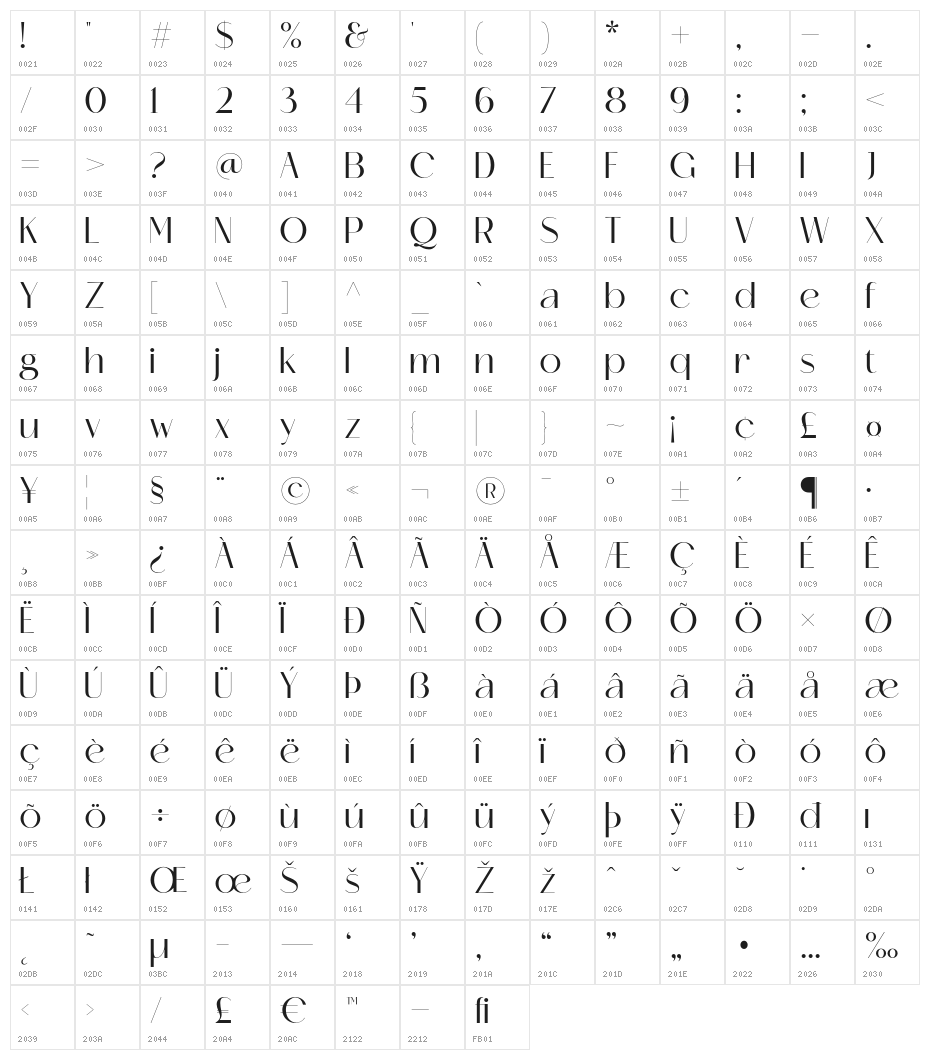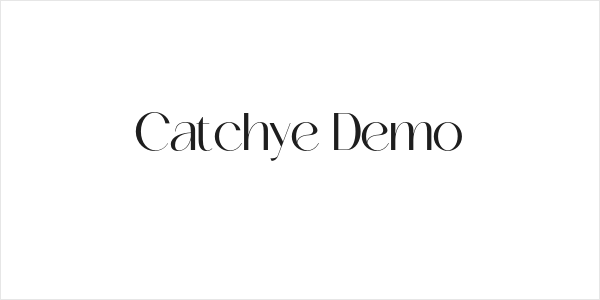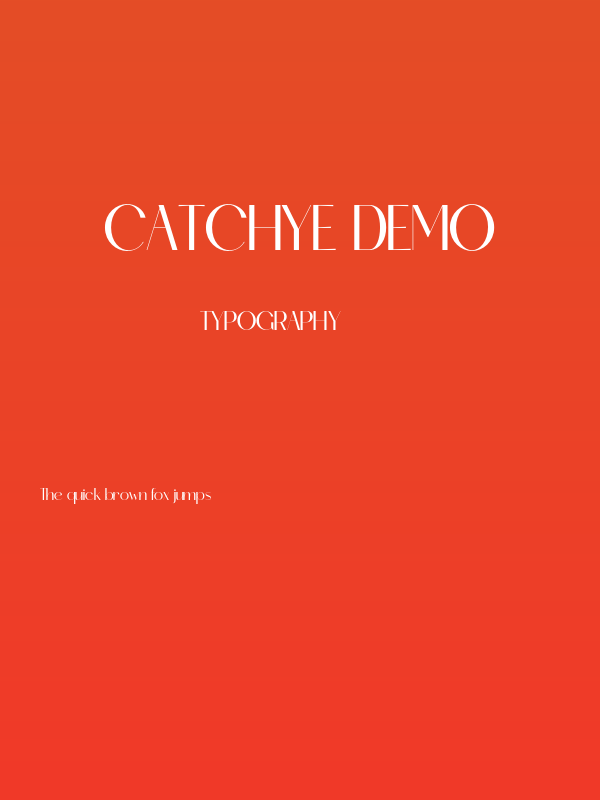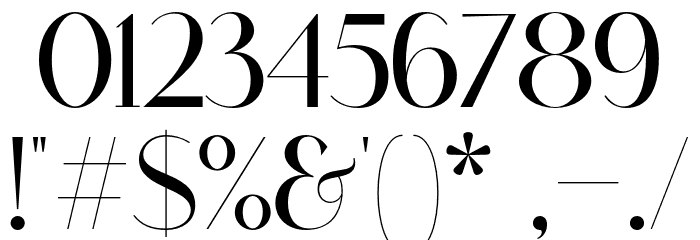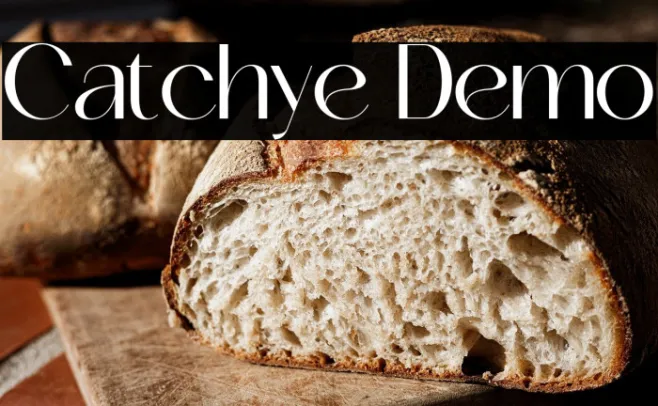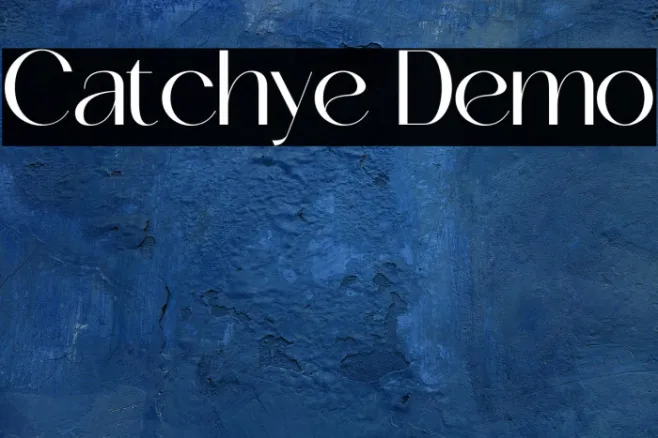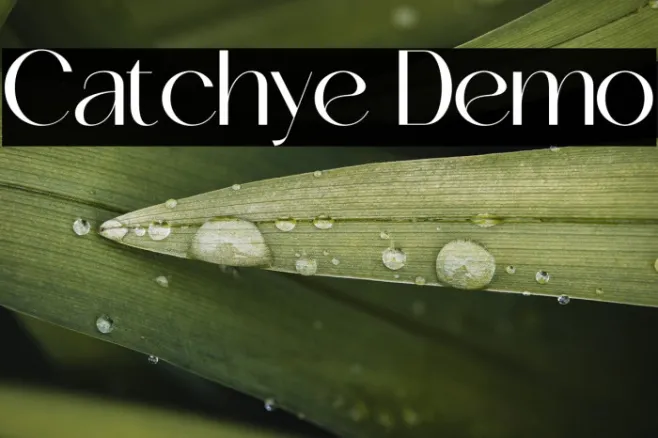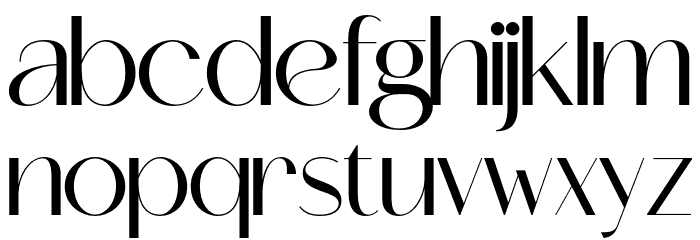
Catchye Demo Font
Catchye Demo Description
This font exhibits a modern and stylish aesthetic with a high contrast between thick and thin strokes, creating a striking visual impact. The uppercase letters are tall and elegant, while the lowercase letters maintain a consistent flow with rounded edges and smooth curves. The numerals are sleek and align well with the overall design, adding to the font's contemporary feel. Special characters are designed with the same attention to detail, ensuring a cohesive look across all elements. This font is perfect for projects that require a sophisticated and fashionable touch.